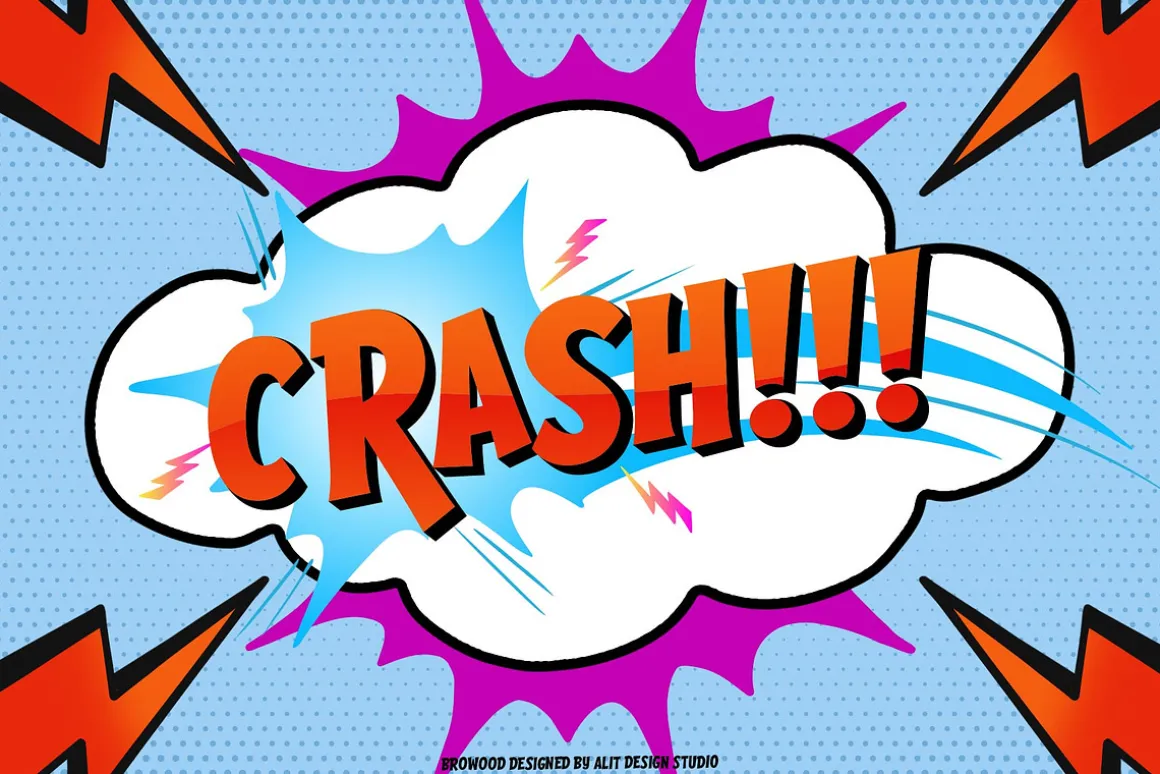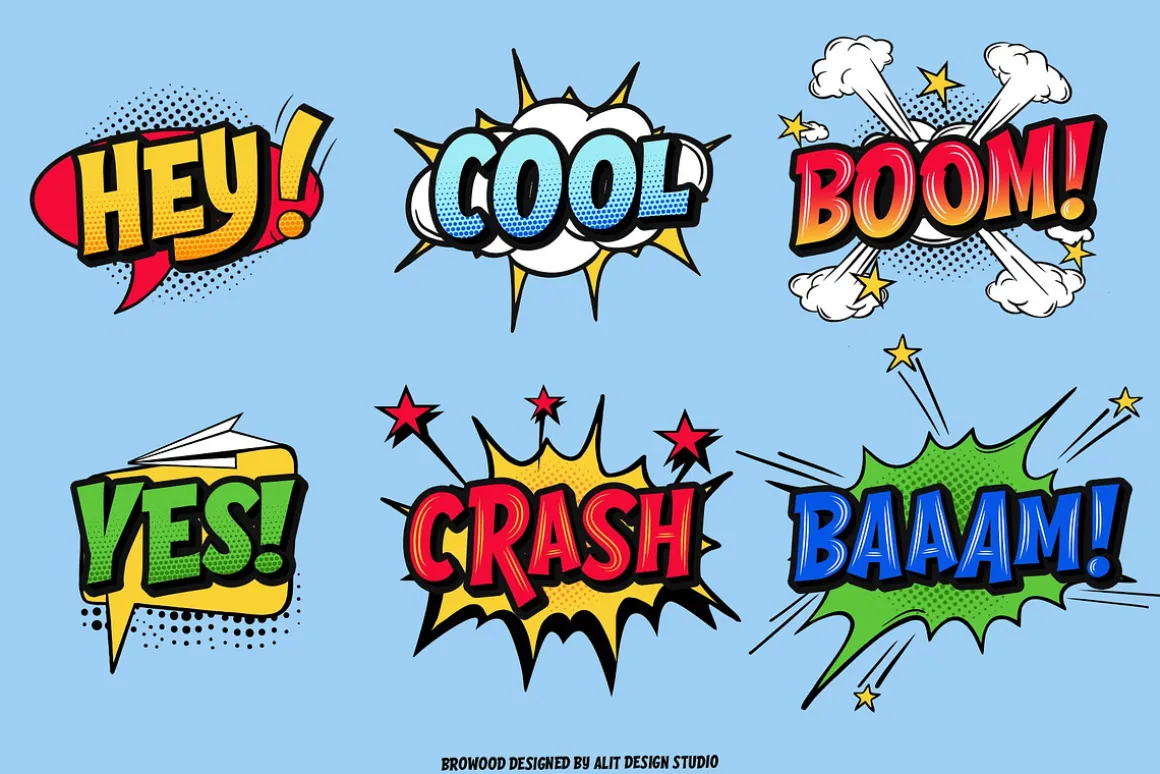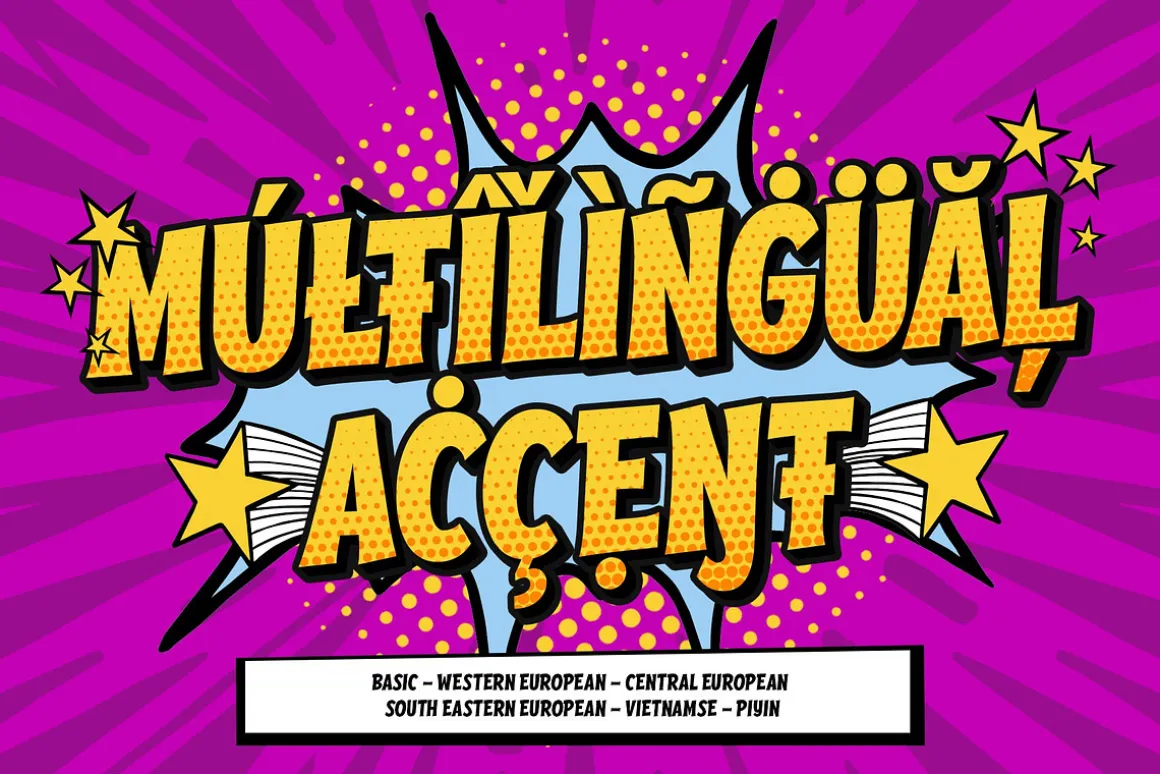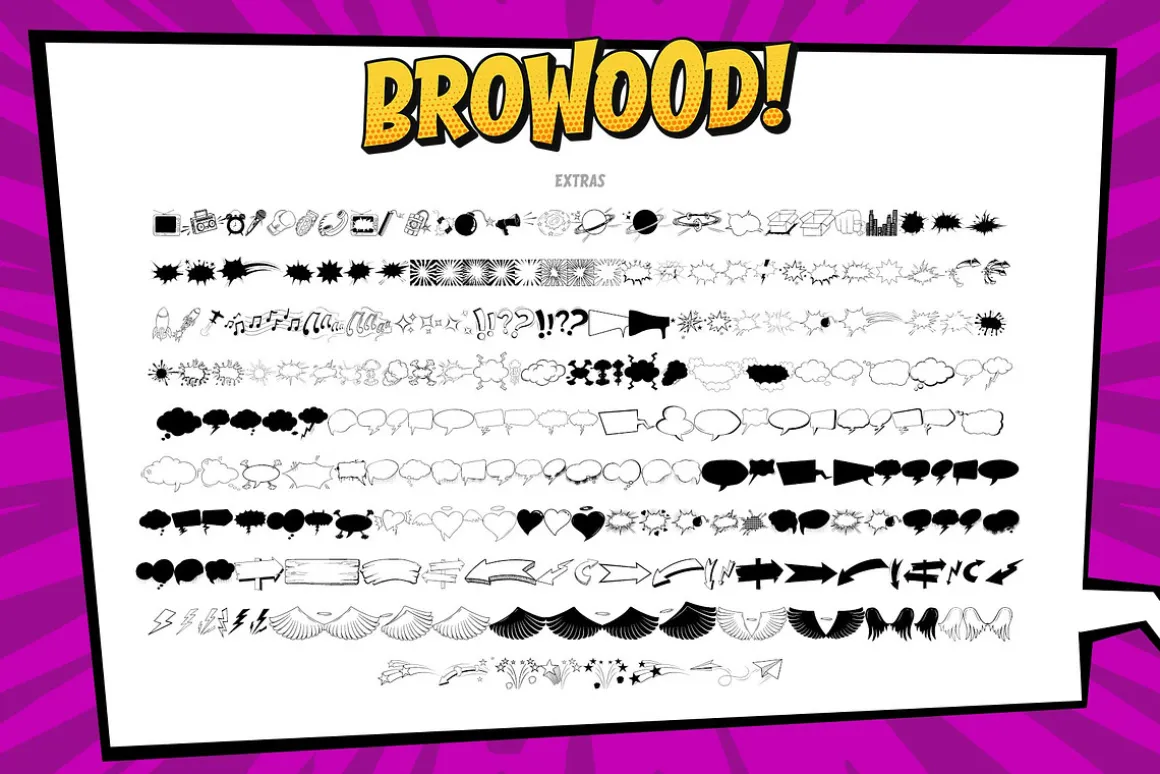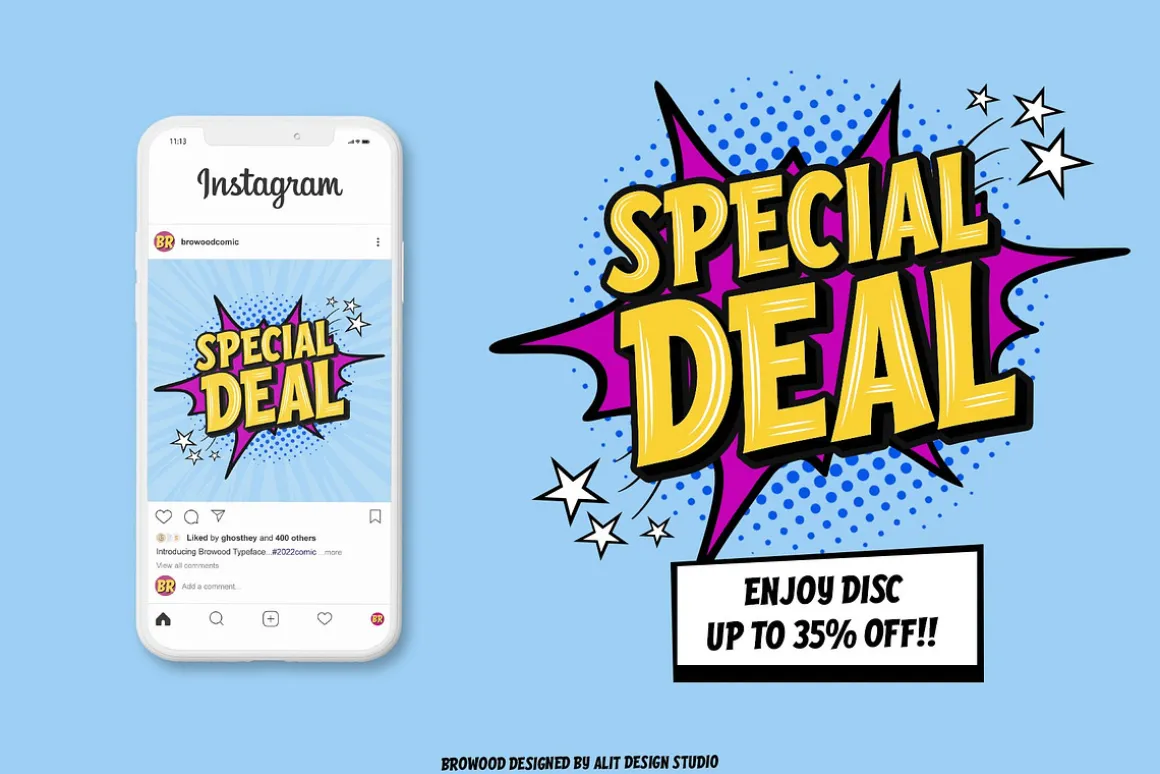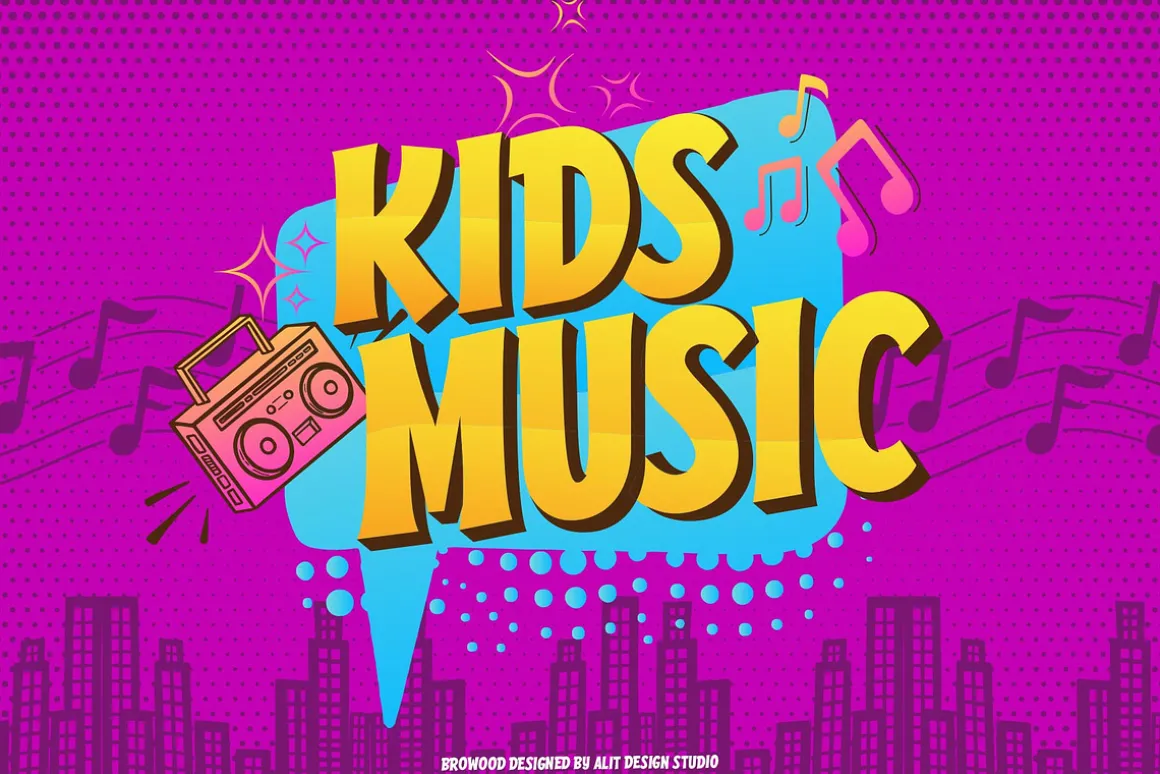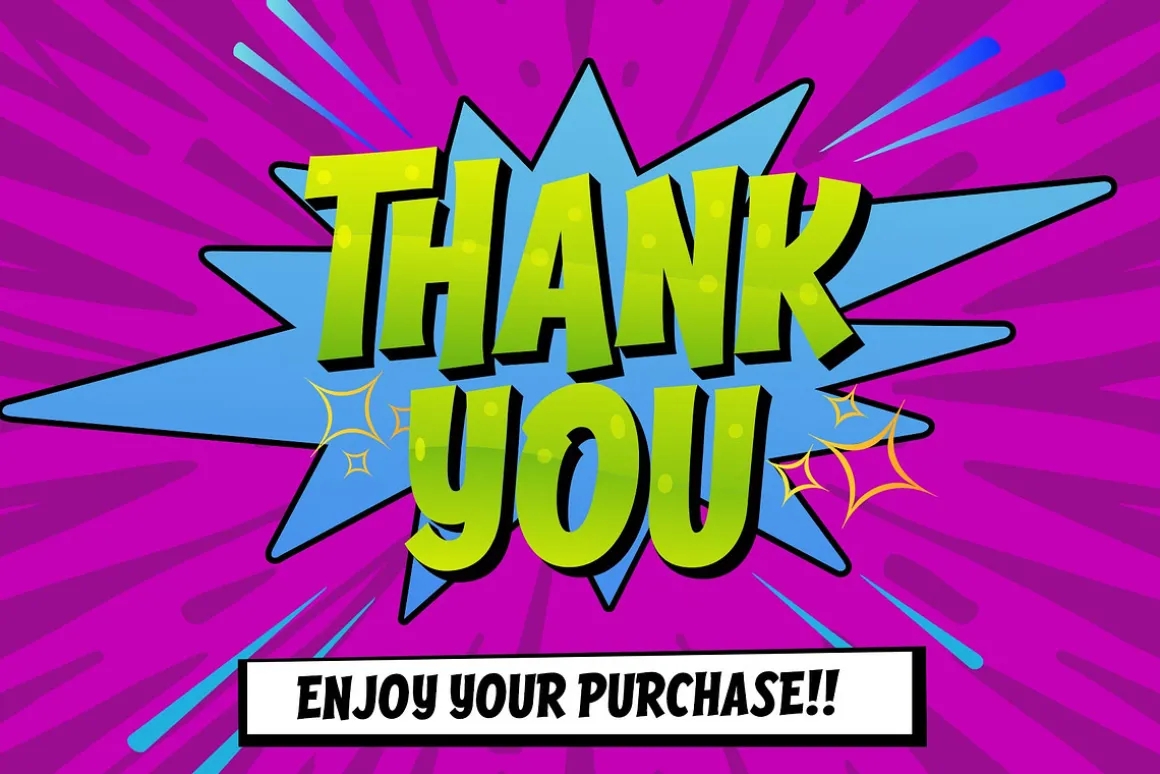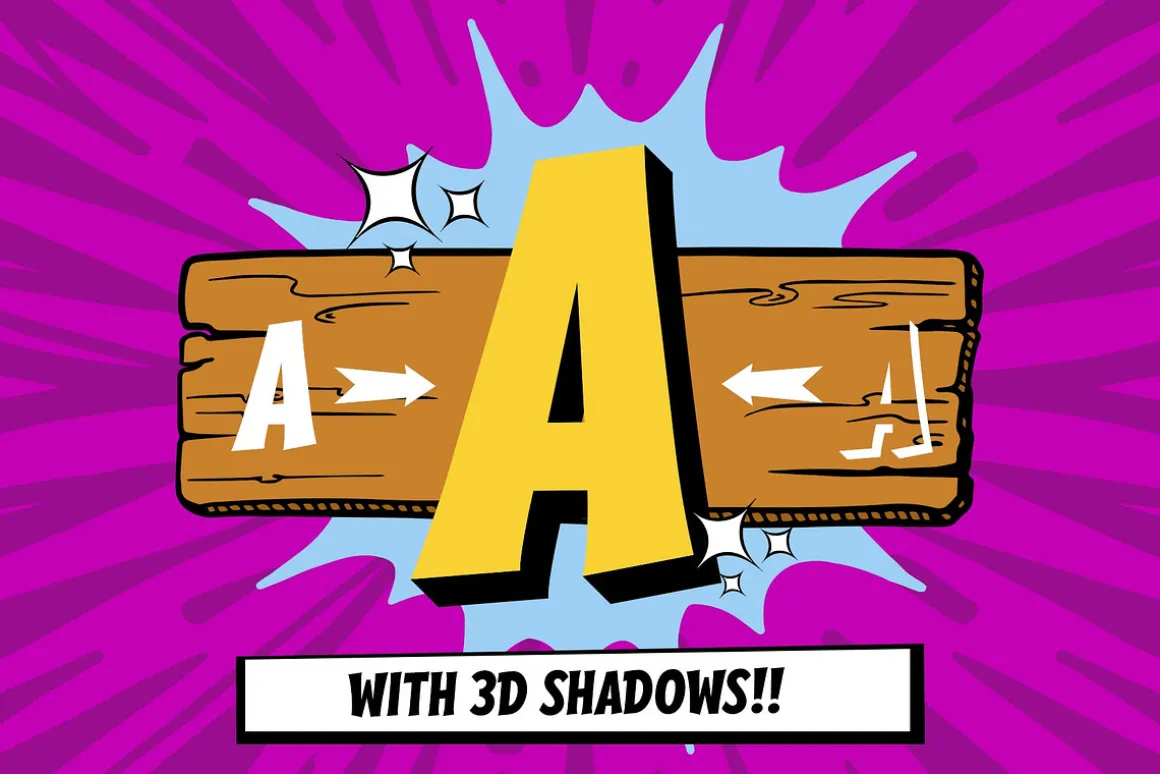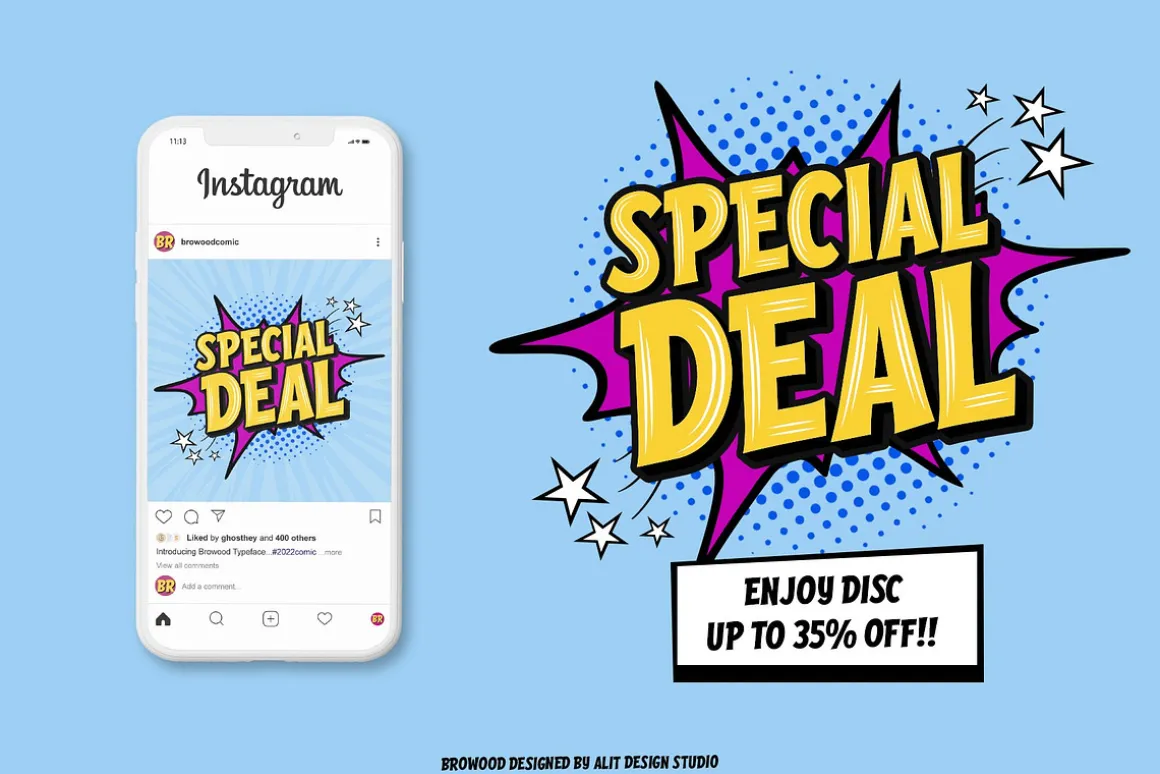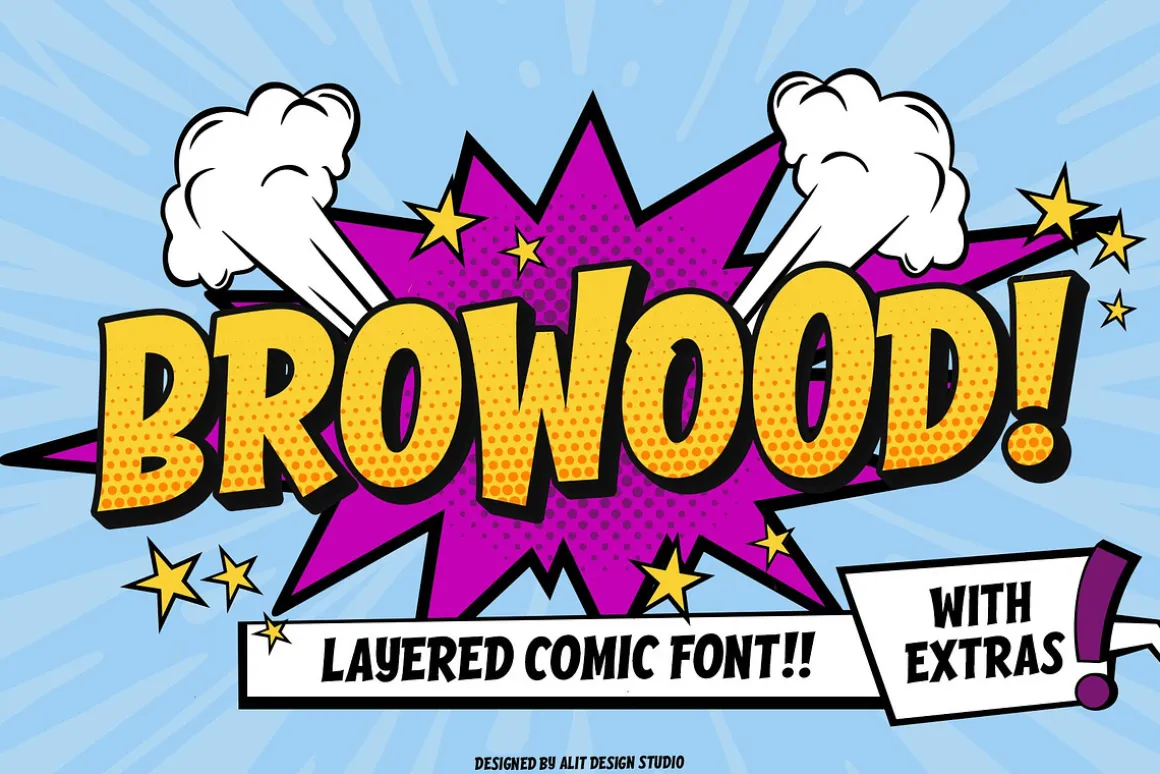
Presenting the 🗯️💬The Browood Layered Comic Font💬🗯️ by alitdesign.
The Browood Layered Comic Font is inspired by the style of letters in comics that have less serious and fun characters. The lettering of the Browood Layered Comic Font is a sans serif with display font characters which gives a fun and design impression for children. The Browood Layered Comic Font has 3 layered font. The Brootahh font is perfect for creating designs with non-serious concepts, designs for children, book headers, and of course for text on comics.
The Browood Layered Comic Font also gets a bonus character of 230 Comic-themed illustrations that make creating designs even easier. Simply by downloading The Browood Layered Comic Font creating a Comic and non formal themed design is very quick and easy.
The Browood Layered Comic Font is perfect for magazine cover designs, brochures, flyers. Instagram ads, Canva Design and so on with comic, non-serious, pop art, game mobile and fun design. Besides that this font is very easy to use both in design and non-design programs because everything changes and glyphs are supported by Unicode (PUA).
The Browood Layered Comic Font contains 544 + 230 bonus glyphs with many unique and interesting alternative options.
Language Support :Latin, Basic, Western European, Central European, South European,Vietnamese.